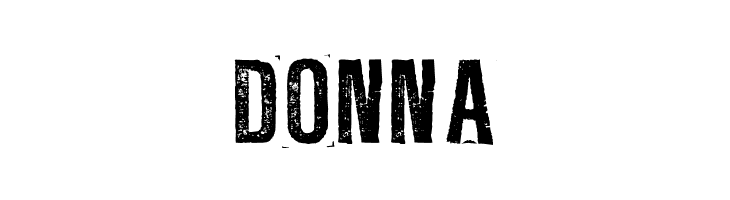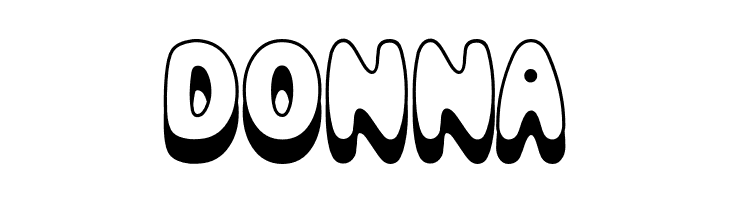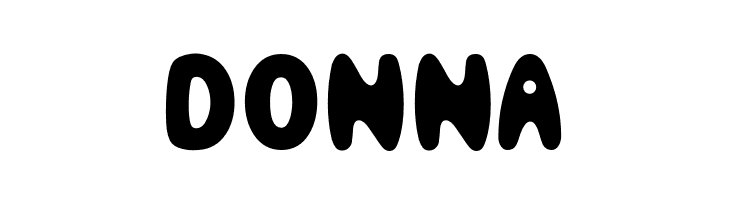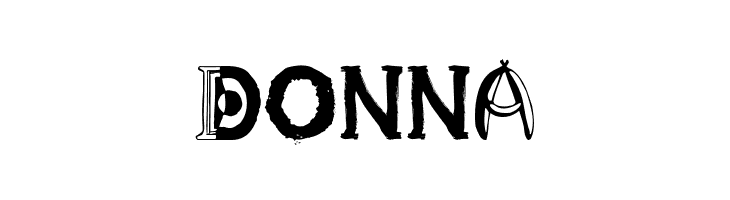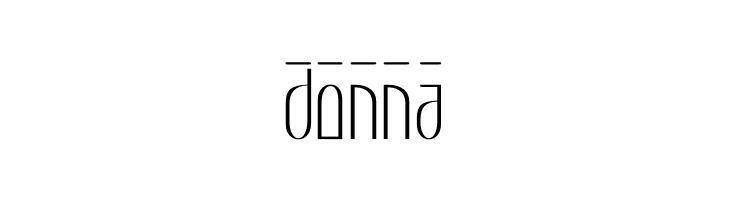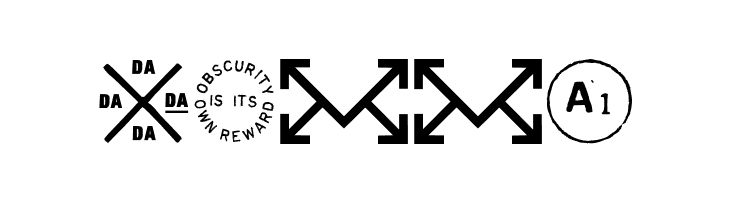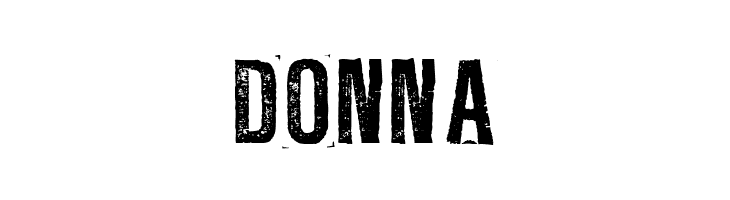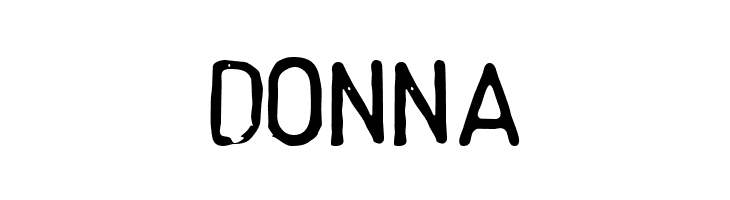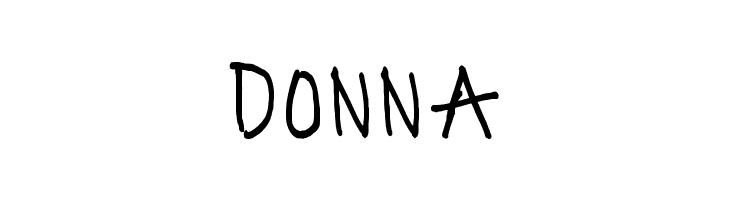
• LLRounded
A bold, rounded font with a distressed, handcrafted look.
• LLRubberGrotesqueOTF
A bold, distressed font with a vintage, textured appearance.
• LLRubberGrotesqueOTF
A bold, distressed font with a vintage, industrial feel.
• MagicalMysteryTour
A bold, playful font with rounded, bubble-like characters.
• MagicalMysteryTourOutlineShadow
A bold, playful font with a three-dimensional outline and shadow effect.
• Mailart
An eclectic and artistic display font with diverse, whimsical character designs.
• MailartGraphics
A decorative, mixed-style font inspired by mail art and stamp graphics.
• Max
A modern, sleek font with elongated, narrow characters and consistent stroke width.
• Max Bold
A modern, geometric font with elongated, narrow letterforms and a sleek design.
• Mia Sister